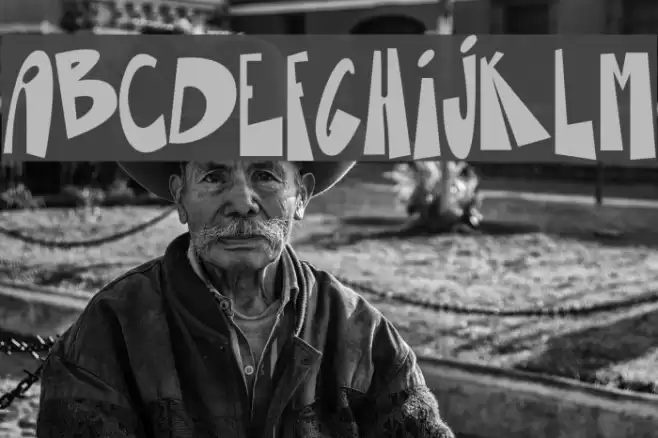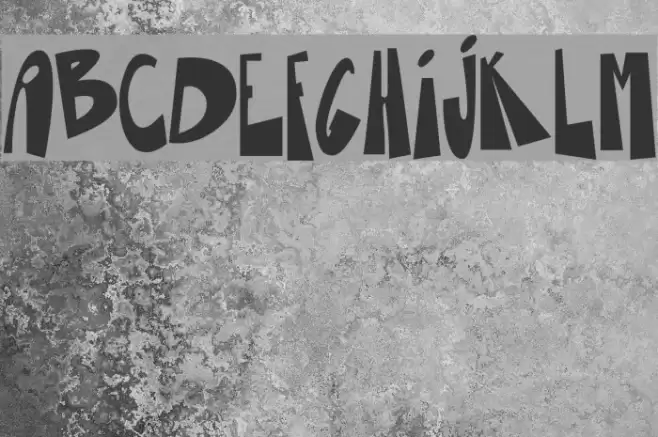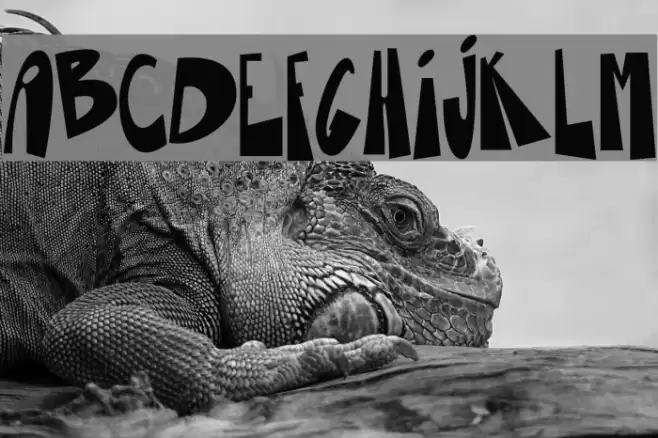
Gnarly Font
Gnarly Description
This font features a bold and playful design with exaggerated, irregular shapes that give it a dynamic and energetic feel. The letters are heavily stylized with varying widths and angles, creating a sense of movement and spontaneity. The uppercase and lowercase letters maintain a consistent style, with sharp edges and a slightly retro vibe. Numbers and special characters are equally bold, matching the overall quirky aesthetic. This font is ideal for projects that require a fun and eye-catching look, such as posters, album covers, or branding for creative industries.
A bold, playful font with exaggerated, irregular shapes and a dynamic feel from Comic fonts.
- Proposed Projects: Perfect for posters, album covers, branding for creative industries, and any project needing a fun, eye-catching look.